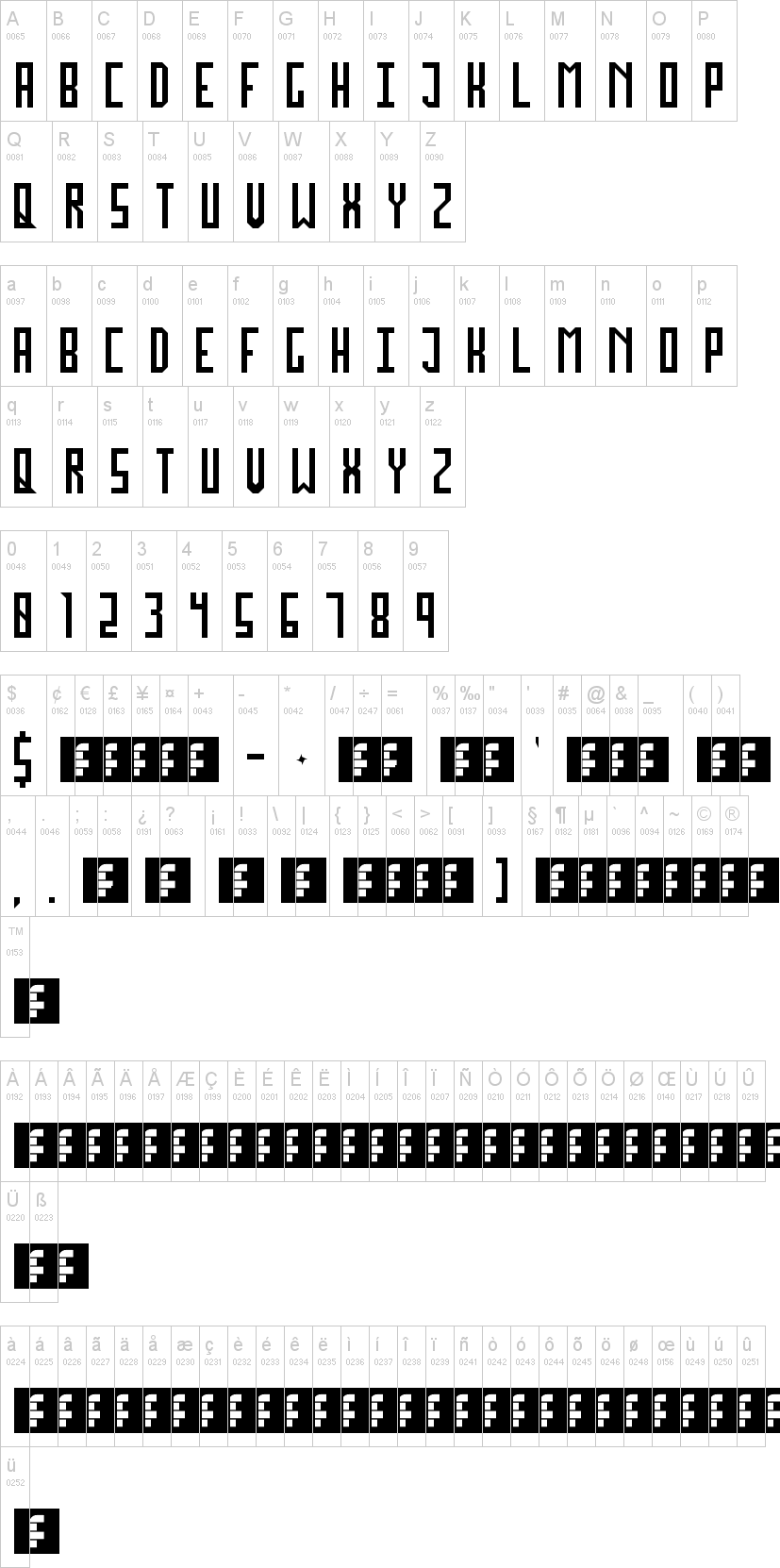
Шрифт Jocko Mongo
Named after two songs off of Devo's debut album, Jocko Mongo straddles a shaky middle ground of the 80's, russian kitsch and a tiny bit of that 20's classiness that wasn't ever quite replicated in early digital font sets.